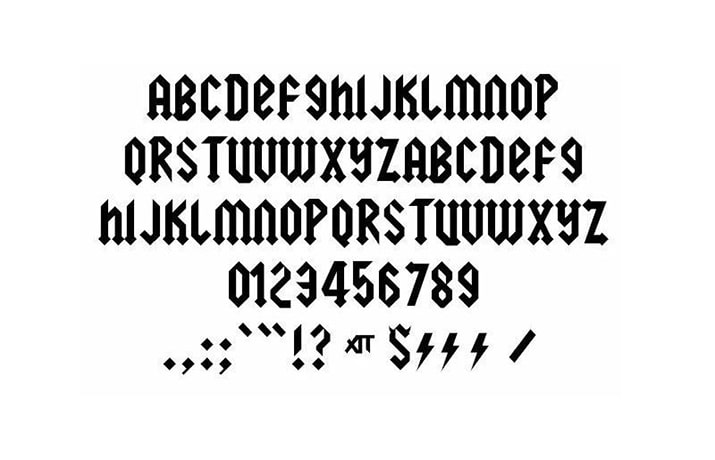
AC/DC Font Free Download
AC/DC Font Family Free Download
AC/DC Font! AC/DC is primarily an Australian rock band formed in Sydney in 1973. It was founded by two brothers of Scottish origin, Malcolm and Angus Young.
This font belongs to logo typeface as it is made for logo design. This font is used in a variety of albums such as Ballbreaker and The Razor’s Edge.
It was published in 1977 and created by Gerard Horta. This logo font has 175 unique and stylish characters with distinctive features.
Font Name:AC/DC Font Family
Style:Logo, Display, Fancy
Font Designer:Gerard Huerta
This gorgeous typeface is suitable for product packaging, logo designs, emblems designs, wall murals, blog images, flyers, titling, and heading purposes of different important documents and articles. This beautiful typeface is useful for unique and creative designs.
Squealer Font is the typeface used in the logo of the famous Australian rock band AC/DC. Designed by Raymond Larrabee for Type Foundry hypodermic fonts.